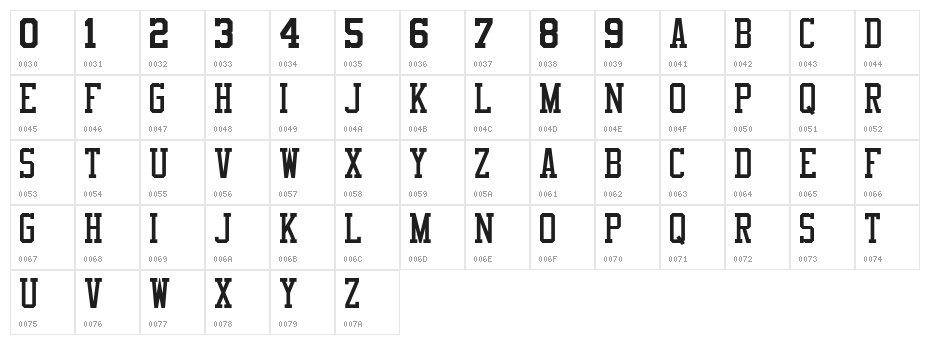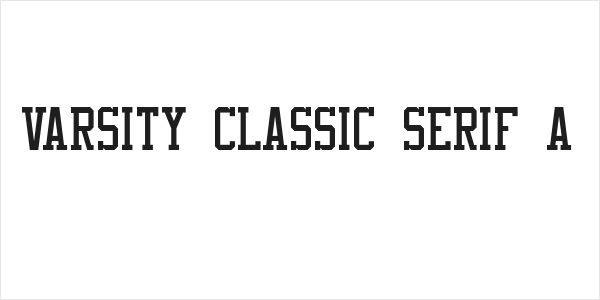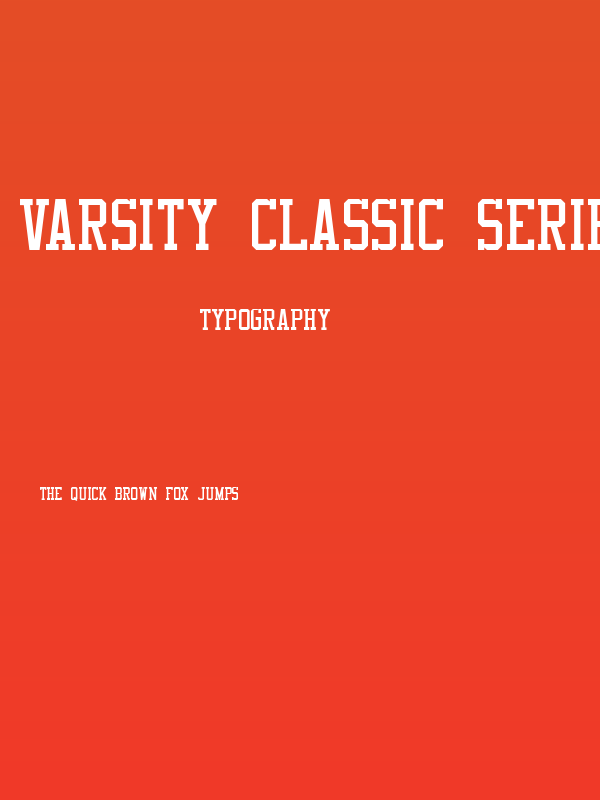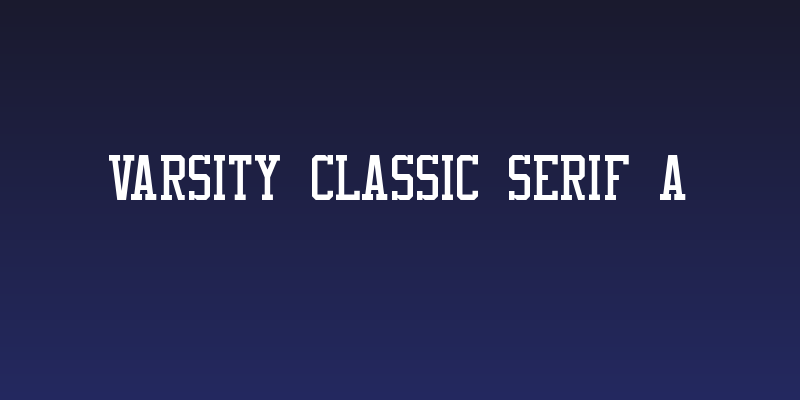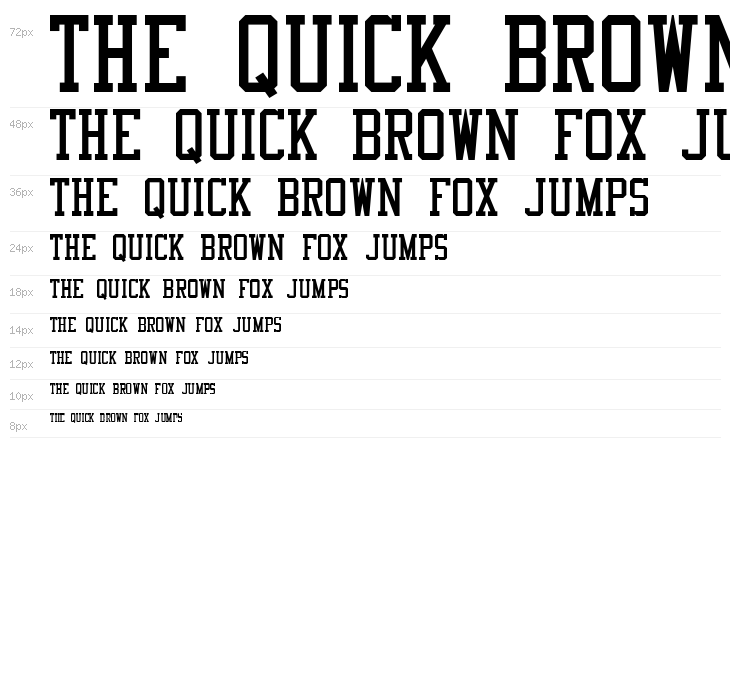
Varsity Classic Serif A Font
Varsity Classic Serif A Description
This font embodies a bold and robust style, reminiscent of traditional varsity or collegiate lettering. The characters are all uppercase, featuring strong, angular serifs that give it a classic yet athletic feel. The numbers follow the same bold style, ensuring consistency across all characters. The overall design is structured and geometric, with a uniform stroke width that enhances its readability and impact. This font is ideal for creating a sense of tradition and strength, often used in sports-related designs or any project requiring a bold statement.
Overall StyleClassic
Proposed ProjectsIdeal for sports team branding, university merchandise, event posters, and any project needing a strong, traditional aesthetic.